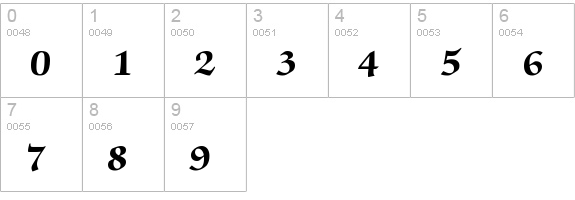
Chancery Script Black SSi Bold Font Details
Chancery Script Black SSi Bold is a maximum-weight, dramatic variant in the Chancery typeface family \xE2\x80\x94 well suited to maximum-impact headlines, posters, and packaging.